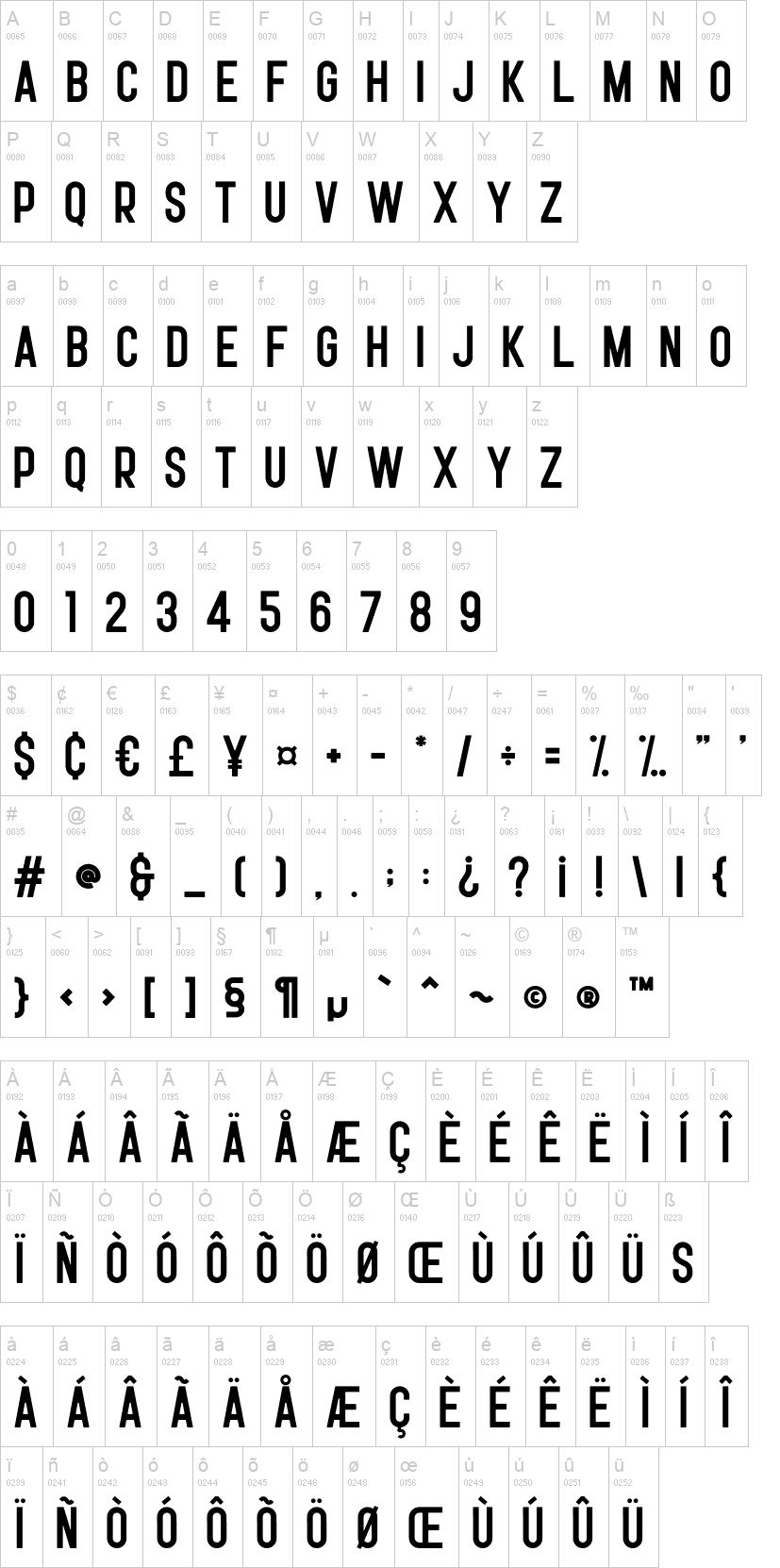
Note of the authorDownload Opera, a versatile sans-serif font family thats perfect for just about any project. With Opera, the possibilities are endless whether youre designing a greeting card or a package, youll be able to bring your project to life like never before. And the best part? Opera is completely free to download.